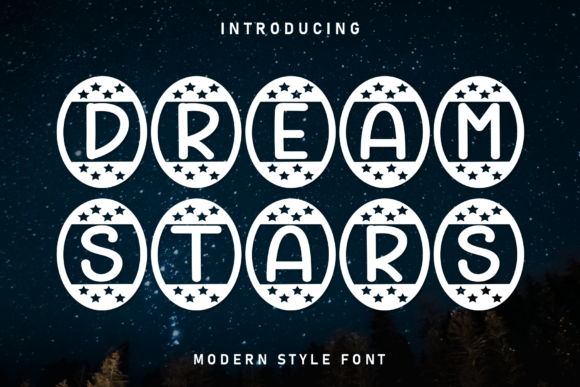
Dream Stars Font: Elevate Your Designs with a Touch of Magic
Are you looking for a font that can add a dash of whimsy and wonder to your designs? Look no further than the Dream Stars Font. This enchanting font is perfect for anyone who wants to create stunning visual content that stands out from the crowd. In this article, we’ll explore the features and benefits of the Dream Stars Font and how it can elevate your designs to new heights.
What is Dream Stars Font?
Dream Stars Font is a unique and creative font that is designed to add a touch of magic to your designs. With its latest style letters, this font is perfect for a wide range of applications, including wall displays, wedding invitations, social media post logos, advertisements, product packaging, product designs, labels, photography, watermarks, invitations, stationery, and any project that requires taste handwriting.
Key Features of Dream Stars Font
Benefits of Using Dream Stars Font
The Dream Stars Font offers a range of benefits that make it an ideal choice for designers and non-designers alike. Here are just a few of the advantages of using this amazing font:
- Add a touch of magic to your designs: With its whimsical and enchanting style, the Dream Stars Font can add a dash of magic to your designs.
- Stand out from the crowd: The Dream Stars Font is unique and creative, making it perfect for anyone who wants to create designs that stand out from the crowd.
- Perfect for a wide range of applications: Whether you’re designing a wedding invitation, social media post, or product packaging, the Dream Stars Font is perfect for a wide range of applications.
Tips and Tricks for Using Dream Stars Font
Here are some tips and tricks to help you get the most out of the Dream Stars Font:
- Experiment with different sizes and colors: The Dream Stars Font looks great in a variety of sizes and colors, so don’t be afraid to experiment and find the perfect combination for your design.
- Use it for headlines and titles: The Dream Stars Font is perfect for headlines and titles, as it adds a touch of magic and whimsy to your text.
- Pair it with other fonts: The Dream Stars Font works well with other fonts, so try pairing it with a complementary font to create a unique and eye-catching design.
In conclusion, the Dream Stars Font is a unique and creative font that can add a touch of magic to your designs. With its latest style letters, compatibility with popular design software, and long-term support, this font is perfect for anyone who wants to create stunning visual content. Whether you’re a designer or non-designer, the Dream Stars Font is an excellent choice for a wide range of applications.